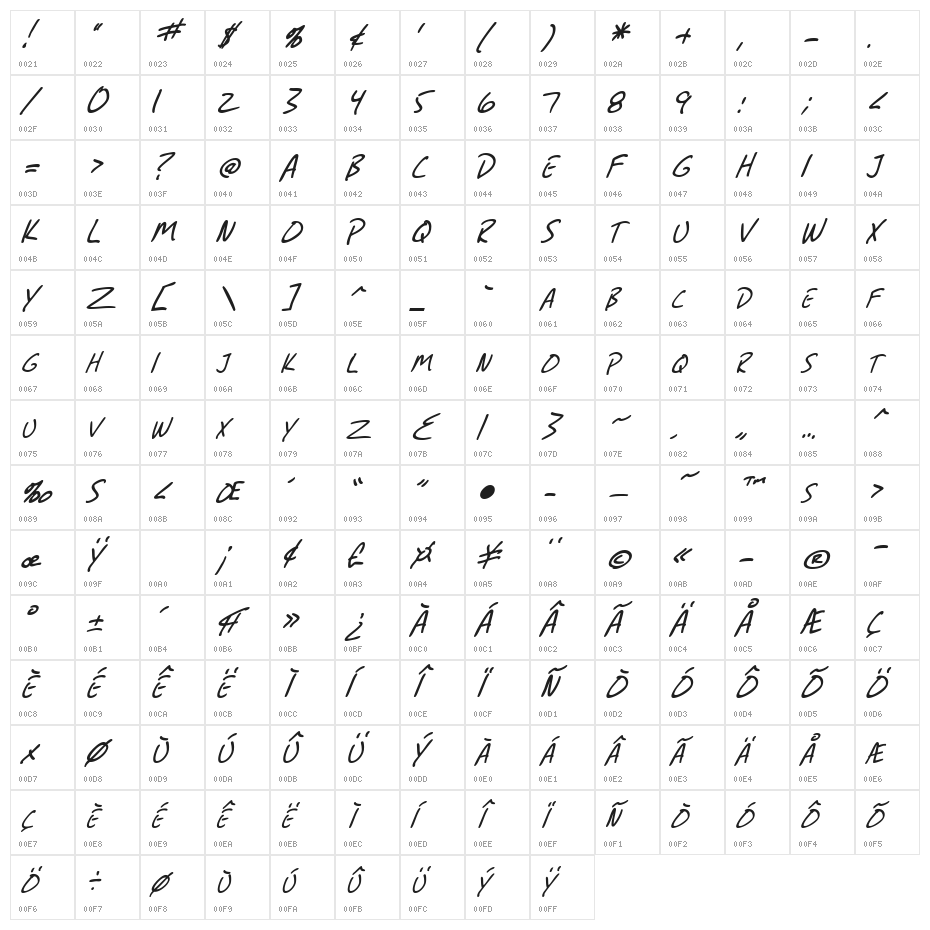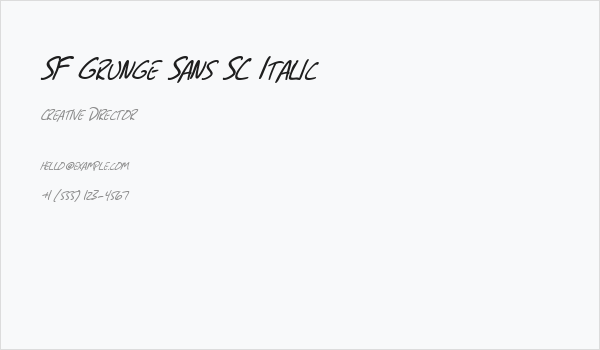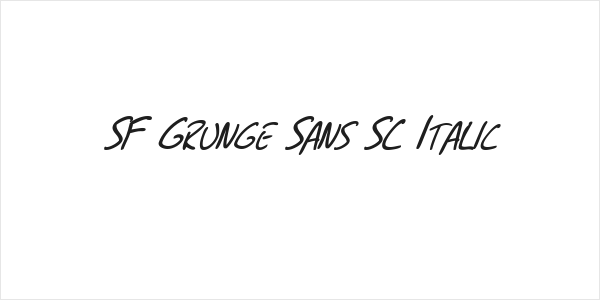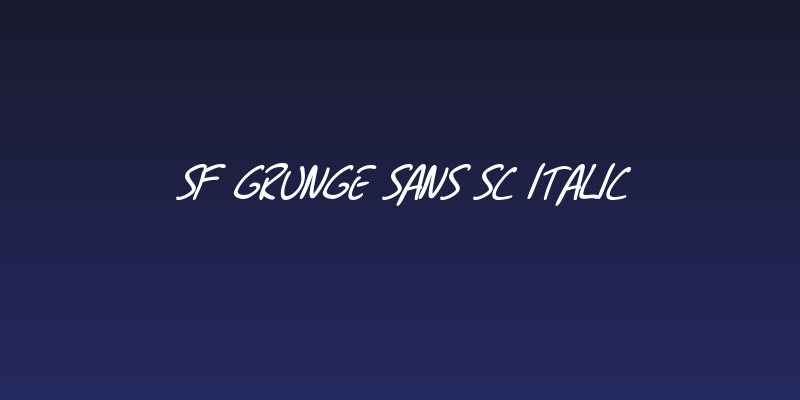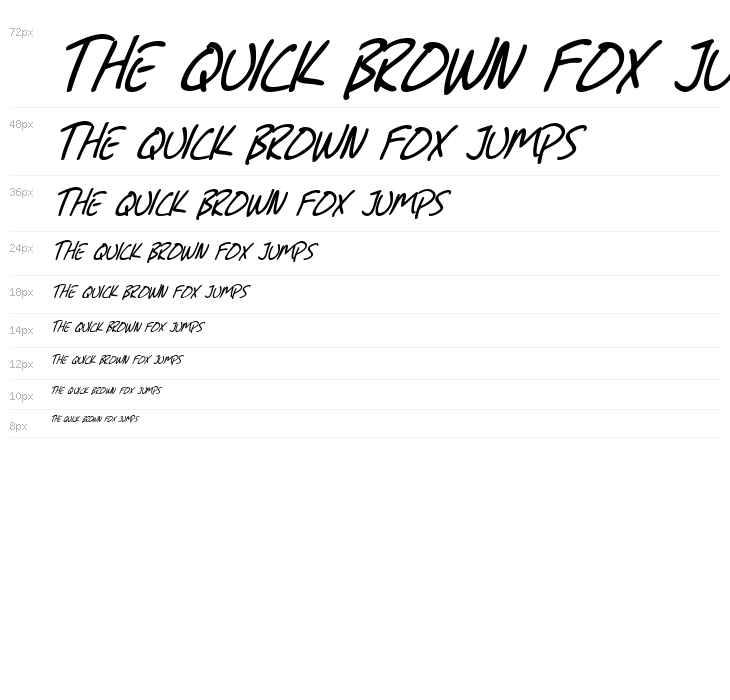
SF Grunge Sans SC Italic Font
SF Grunge Sans SC Italic Description
This font exhibits a dynamic and energetic style, characterized by its handwritten appearance with a slight slant, giving it an italicized look. The strokes are bold and expressive, with a grunge-like texture that adds a raw, edgy feel. The uppercase and lowercase letters maintain a consistent flow, while the numerals and special characters complement the overall aesthetic. This font's informal and artistic nature makes it suitable for creative projects that require a personal touch.
| Proposed Projects | Ideal for posters, album covers, graffiti art, and urban-themed designs. |